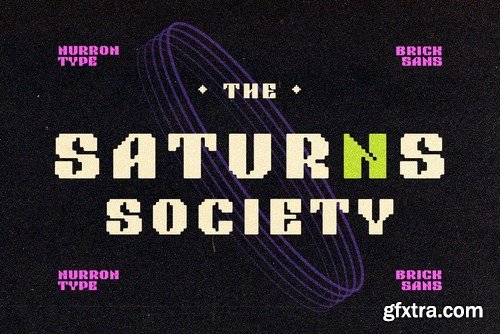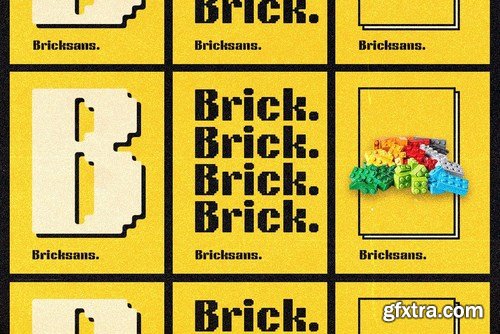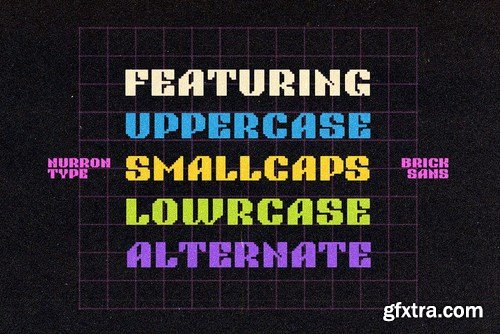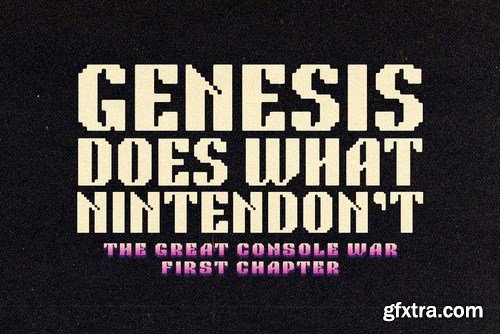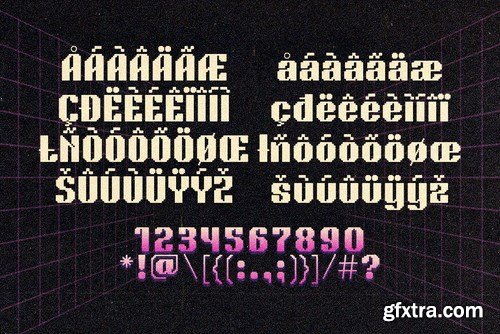
Bricksans is pixelated sans serif. It's a pixel font with open type features. I made it with low caps addition. It's bold, rounded and support multi language.